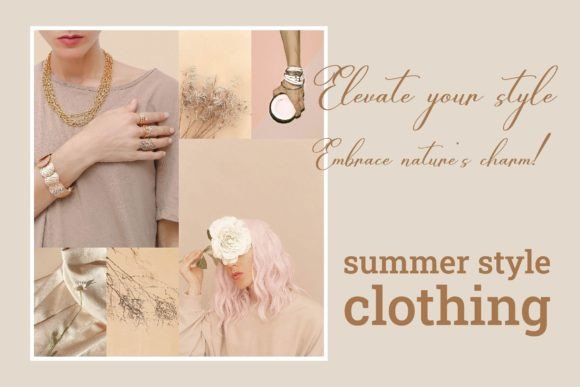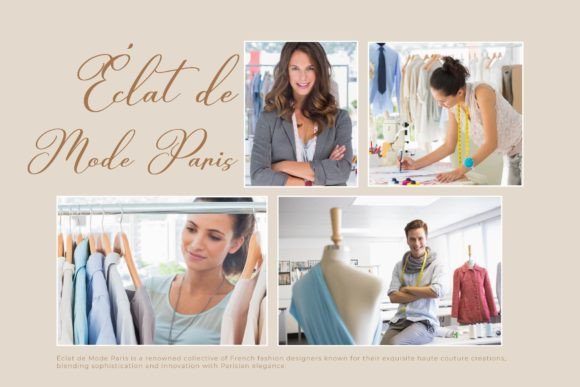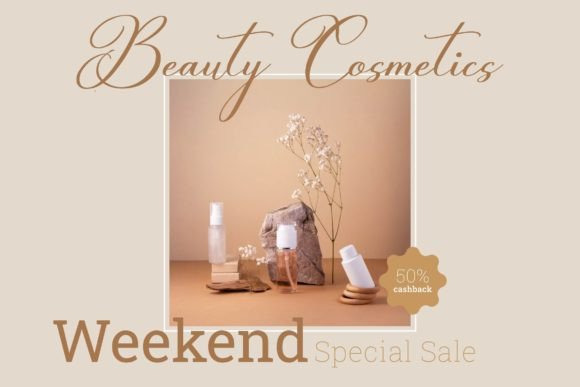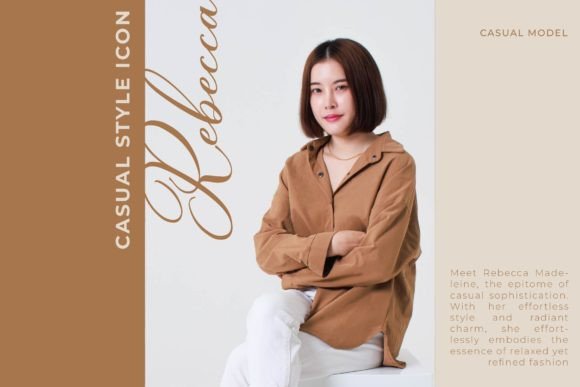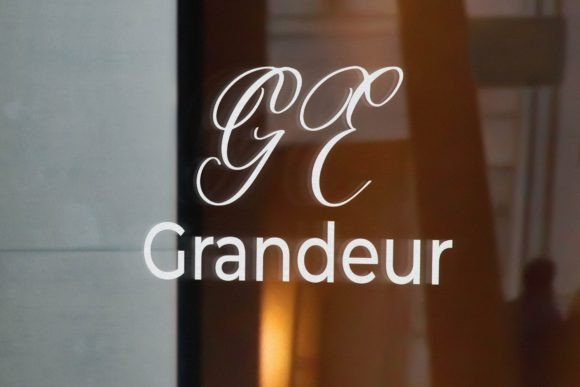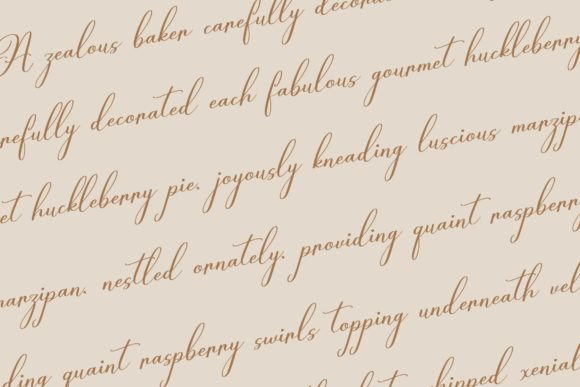
Introduction to Quentty Font Font
Fonts play a crucial role in design, and the Quentty Font font is a typeface that brings both character and versatility to any project. Whether you’re working on a branding project, a website, or a print design, the Quentty Font font offers a unique style that can elevate your work.
Quentty is a stylish script font with elegant, flowing letters.
It has a handwritten look, perfect for creating personal, creative, or fancy designs Its smooth curves and soft lines make it easy to read and add a touch of sophistication to any project.
Key Features of Quentty Font Font
Why Choose Quentty Font Font?
The Quentty Font font is more than just a typeface – it’s a design tool that helps you communicate your message with style and clarity. Its unique character set and versatile design make it suitable for a wide range of applications, from elegant invitations to bold headlines.
With its carefully crafted letterforms and balanced proportions, the Quentty Font font ensures readability and visual appeal across all mediums.
What makes Quentty Font font special?
The Quentty Font font stands out with its unique design, exceptional readability, and versatility across various design applications.